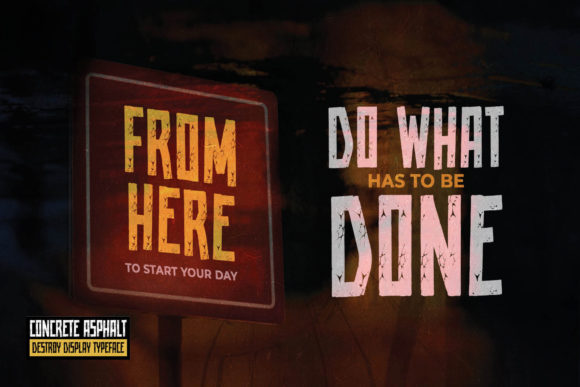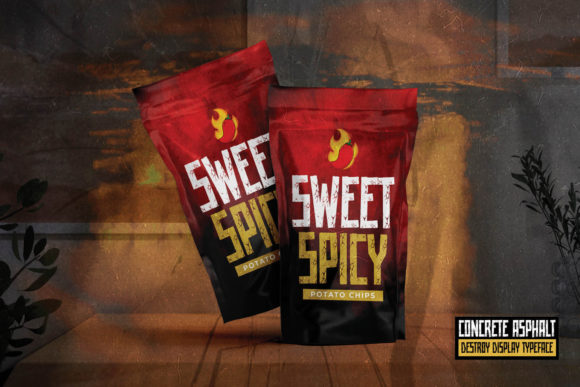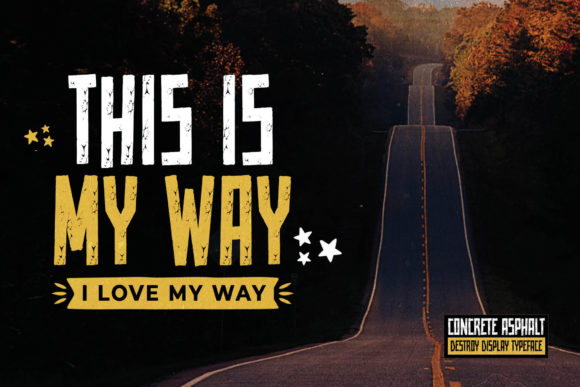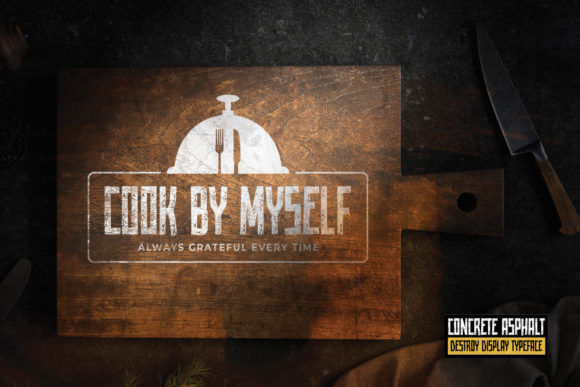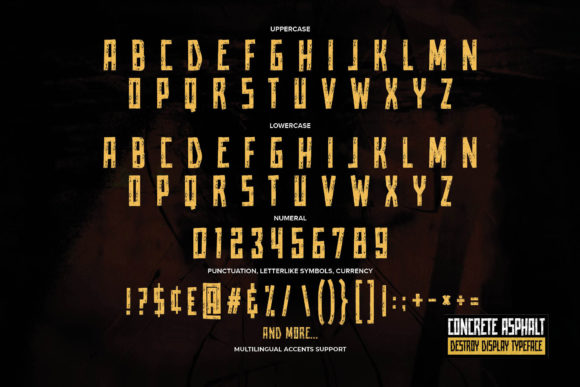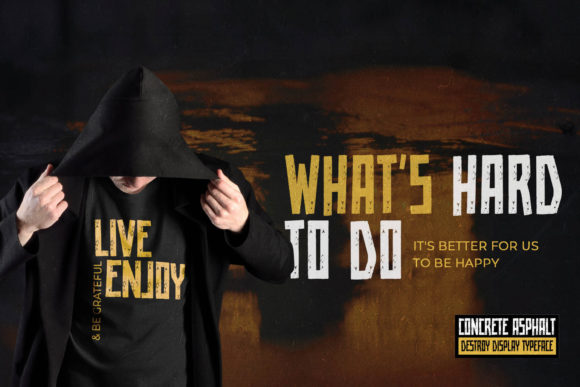
Introducing Concrete Asphalt Font: The Ultimate Display Typeface for Designers and Crafters
In the world of design, a font can make or break a project. It’s the perfect blend of style, functionality, and creativity that can elevate a design from ordinary to extraordinary. If you’re a designer or crafter looking for a unique and versatile font to add to your arsenal, look no further than Concrete Asphalt Font. This destroy display typeface is designed to bring a natural feel to your designs, making it perfect for a wide range of projects.
What is Concrete Asphalt Font?
Concrete Asphalt Font is a carefully crafted display typeface that boasts a unique, natural feel. Its rugged and weathered texture gives it a distinct look that’s reminiscent of concrete and asphalt. This font is not just a collection of letters; it’s an experience that can add depth and character to any design project. Whether you’re working on invitations, logos, book covers, crafts, or any other design purpose, Concrete Asphalt Font is the perfect choice.
Key Features of Concrete Asphalt Font
• Unique Craft Style: Concrete Asphalt Font features a one-of-a-kind craft style that sets it apart from other fonts. Its distinctive texture and rugged edges give it a natural, earthy feel that’s perfect for designs that require a bit of grit and character.
• Natural Feel: The font’s natural feel makes it perfect for designs that require a organic look. Whether you’re creating a logo, invitation, or book cover, Concrete Asphalt Font will add a touch of warmth and personality to your design.
• Versatility: Concrete Asphalt Font is incredibly versatile and can be used for a wide range of design projects. From crafts to logos, and from invitations to book covers, this font can adapt to any design need.
Benefits of Using Concrete Asphalt Font
So, why choose Concrete Asphalt Font for your design projects? Here are just a few benefits of using this amazing display typeface:
• Adds Character to Your Designs: Concrete Asphalt Font can add a touch of personality to your designs, setting them apart from more generic, run-of-the-mill fonts.
• Perfect for Crafters: If you’re a crafter looking for a font that can add a bit of grit and texture to your designs, Concrete Asphalt Font is the perfect choice.
• Great for Logos and Branding: The unique texture and natural feel of Concrete Asphalt Font make it perfect for logos and branding projects that require a bit of edge.
• Book Covers and Invitations: Concrete Asphalt Font is also perfect for book covers and invitations that require a bit of texture and character.
Tips and Tricks for Getting the Most Out of Concrete Asphalt Font
Here are a few tips and tricks for getting the most out of Concrete Asphalt Font:
• Experiment with Different Sizes: Concrete Asphalt Font looks great in a variety of sizes. Experiment with different sizes to find the one that works best for your design.
• Play with Color: The natural texture of Concrete Asphalt Font looks great in a variety of colors. Experiment with different colors to find the one that works best for your design.
• Use it with Other Fonts: Concrete Asphalt Font pairs well with other fonts. Experiment with different font combinations to find the one that works best for your design.